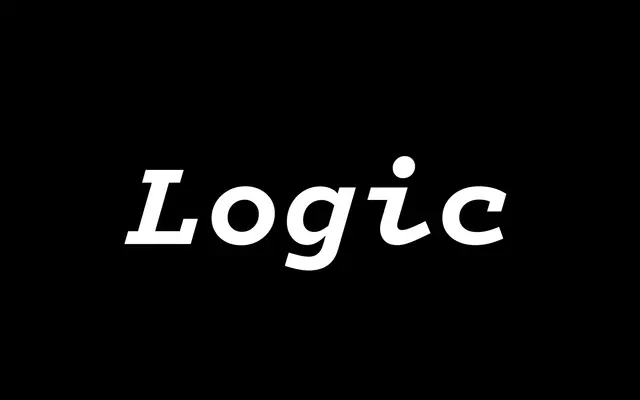
Logic
MCKL · Jeremy Mickel · 2019
A five-weight monospace family by Jeremy Mickel drawing from midcentury typewriter faces, extended with a rare connecting script variant in matching fixed-width spacing.
Inspired by IBM Selectric's Advocate, Courier and Stephenson Blake's Scarab, Logic Monospace carries the warmth of typewriter letterforms across Light to Black with roman and italic cuts. The accompanying Logic Monoscript is an unusual proposition: a true connecting script constrained to monospace metrics, a format with almost no precedent. Stylistic sets offer alternates including a schoolbook lowercase 'a', looped italic descenders and script capitals for selective variation.
A fixed-width slab serif drawing from midcentury typewriter faces such as Courier and IBM Selectric's Advocate; the Monoscript subfamily adds a rare connecting script variant within the monospace constraint.